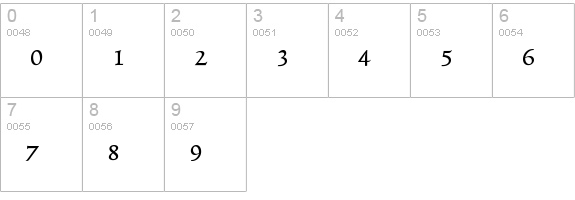
TriniteNo1-RomanWidePi font is a stunning display font that captures attention with its clean and bold design. With its wide and rounded characters, this font exudes a sense of modernity and elegance. The perfect choice for headlines, logos, and branding materials, TriniteNo1-RomanWidePi adds a touch of sophistication to any project. What sets TriniteNo1-RomanWidePi font apart is not just its aesthetic appeal, but also its accessibility. This font is available for free download at FontsMarket.com, making it a valuable resource for designers, creatives, and anyone in need of a high-quality font without breaking the bank. Whether you're working on a poster, website, or any other creative endeavor, TriniteNo1-RomanWidePi font will elevate your design to new heights. Its versatility allows it to be used in a range of contexts, from professional to playful, ensuring that your message is conveyed with utmost impact. With its extensive character set, TriniteNo1-RomanWidePi font supports multiple languages, allowing you to reach a global audience with ease. Its legibility and clarity make it suitable for both print and digital applications, ensuring that your message is communicated effectively across various mediums. In summary, TriniteNo1-RomanWidePi font is a powerful and versatile typeface that combines modernity and elegance. Its availability for free download at FontsMarket.com makes it an invaluable asset for designers seeking a high-quality font without any cost. Take your designs to the next level with TriniteNo1-RomanWidePi font, and captivate your audience with its clean and bold aesthetic.